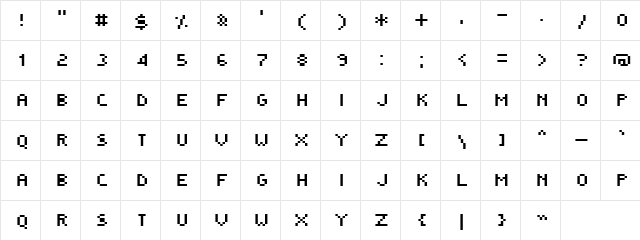
Genx KCond Cyr Regular Font Preview
Genx KCond Cyr Regular
Design Context for Genx KCond Cyr Typeface
Genx KCond Cyr takes a measured approach to typography — its balanced proportions and neutral character make it a reliable workhorse for both digital and print work. Its narrow stance lets it pack a punch even in space-constrained designs.